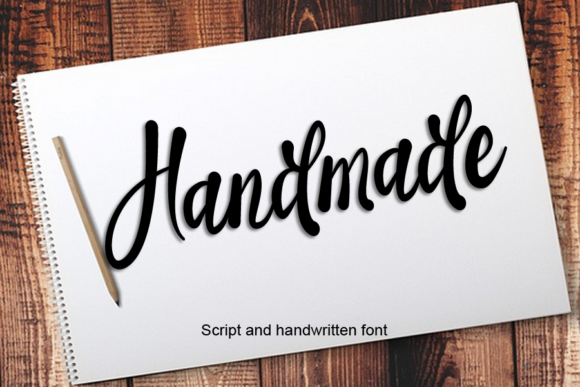
Handmade is a charming and versatile handwritten font that brings a touch of whimsy and creativity to a wide range of design projects. Its simple yet quirky style makes it a perfect choice for adding a unique and personalized touch to various materials.
Elevate the elegance of your wedding invitations by incorporating Handmade into the design. Its playful and adaptable nature adds a sense of charm and individuality to the invitations, setting the tone for a memorable and joyful celebration. The font’s handwritten look adds a warm and personal feel to the invitation suite, making it a delightful choice for couples seeking a distinct and heartfelt design.
For business cards that leave a lasting impression, Handmade offers a creative and unconventional option. Its quirky and adaptable nature sets your business cards apart, making them more memorable and engaging. Whether you’re in a creative industry or simply want to stand out, Handmade adds a touch of personality to your business branding.
Create delightful greetings cards that convey genuine emotions and sentiments. Handmade’s handwritten charm enhances the authenticity of your messages, making the recipient feel truly valued and appreciated. Whether it’s a birthday, holiday, or special occasion, the font’s quirky style adds a playful and heartfelt touch to your greetings.
Infuse your social media posts with Handmade’s adaptability and charm. Whether you’re sharing quotes, updates, or announcements, the font’s handwritten appearance adds a relatable and down-to-earth vibe to your content. It helps create a more personal connection with your audience, fostering engagement and interaction.
Bring your walls to life with Handmade’s unique style. Whether you’re creating wall art, posters, or decorative prints, the font’s quirky and adaptable design adds a touch of artistic flair to your space. Its handwritten look creates a sense of authenticity and originality, making your wall decor stand out.
Incorporating Handmade into your designs allows you to embrace a playful and personalized aesthetic that resonates with a wide audience. Its adaptability and charm make it suitable for wedding invitations, business cards, greetings cards, social media posts, wall art, and more. Let Handmade add a touch of whimsy and creativity to your design projects, making them truly memorable and engaging.